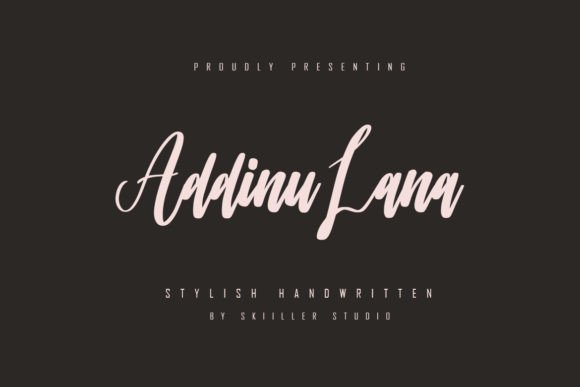
In a world where digital communication reigns supreme, your written words have the power to captivate, persuade, and inspire. Allow Addinu Lana, the enchanting script font from the creative minds at Skiiller Studio, to transform your words into captivating visual masterpieces.
With its elegant curves and natural flow, Addinu Lana will add a touch of sophistication and charm to your designs. Whether you're crafting wedding invitations, designing logos, or creating eye-catching social media posts, this font will elevate your projects to new heights.
Immerse yourself in the beauty of Addinu Lana and discover a world of creative possibilities. Its versatility knows no bounds, from branding and product packaging to photography and watermarks, this font will seamlessly adapt to your every need. Let your imagination soar as you create stunning designs that leave a lasting impression.
Unlike ordinary fonts, Addinu Lana possesses a unique ability to evoke emotions and create personal connections. Its handwritten style mimics the natural flow of pen on paper, adding a touch of warmth and authenticity to your designs. Engage your audience on a deeper level, touching their hearts and minds with every word you write.
Step into the world of Addinu Lana and unlock the potential of your creative vision. With its timeless elegance and captivating charm, this font will transform your designs into unforgettable works of art that speak volumes. Embrace the power of Addinu Lana and let your words dance with grace and elegance.